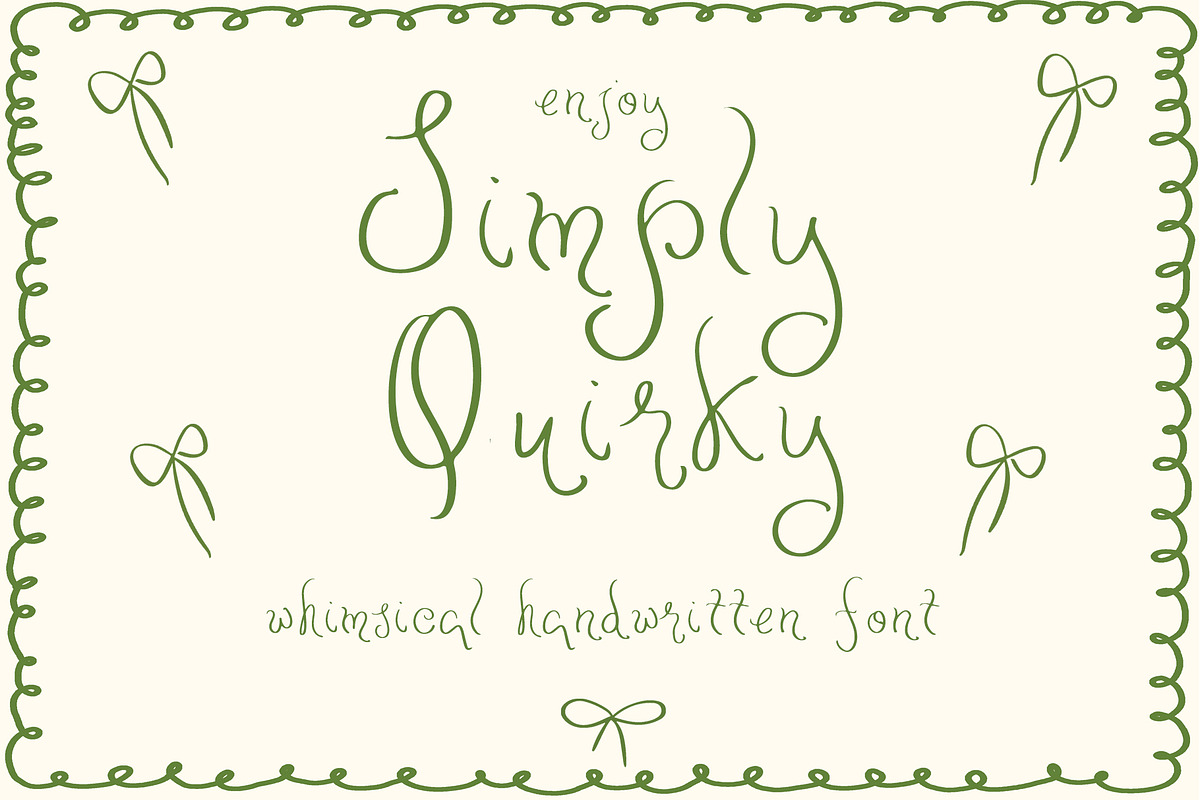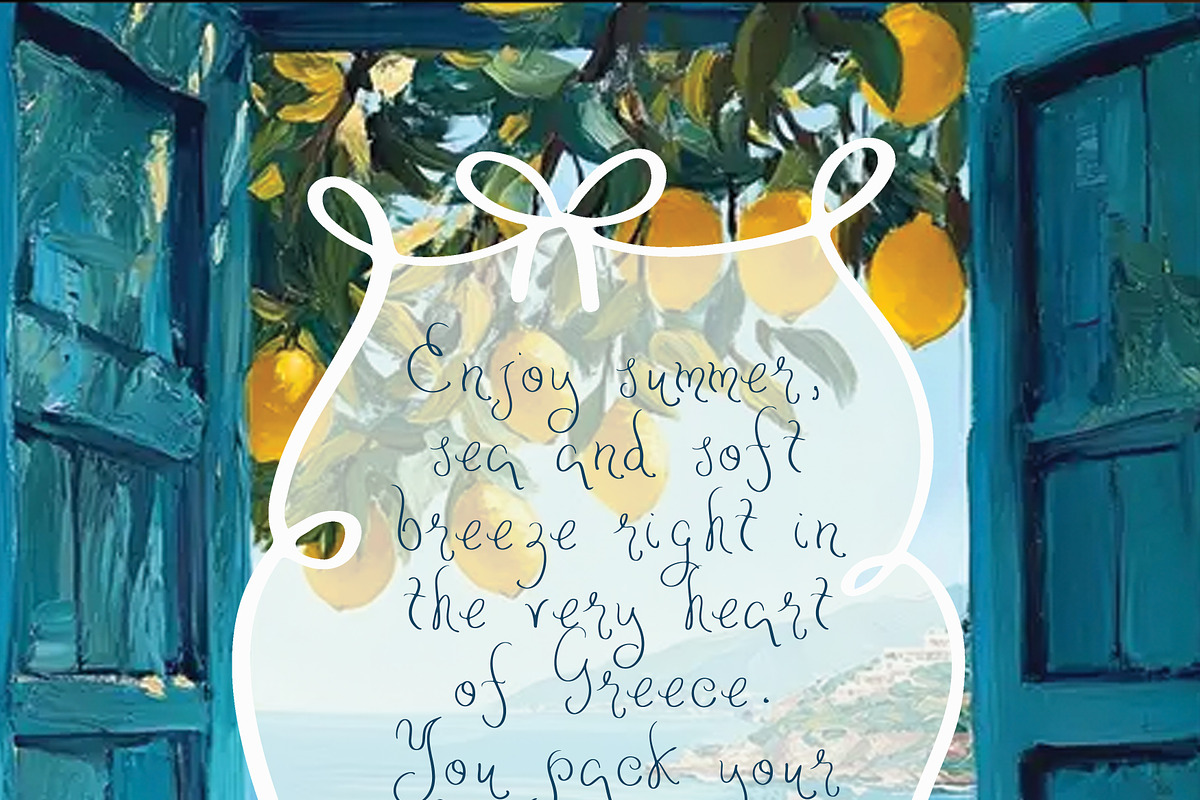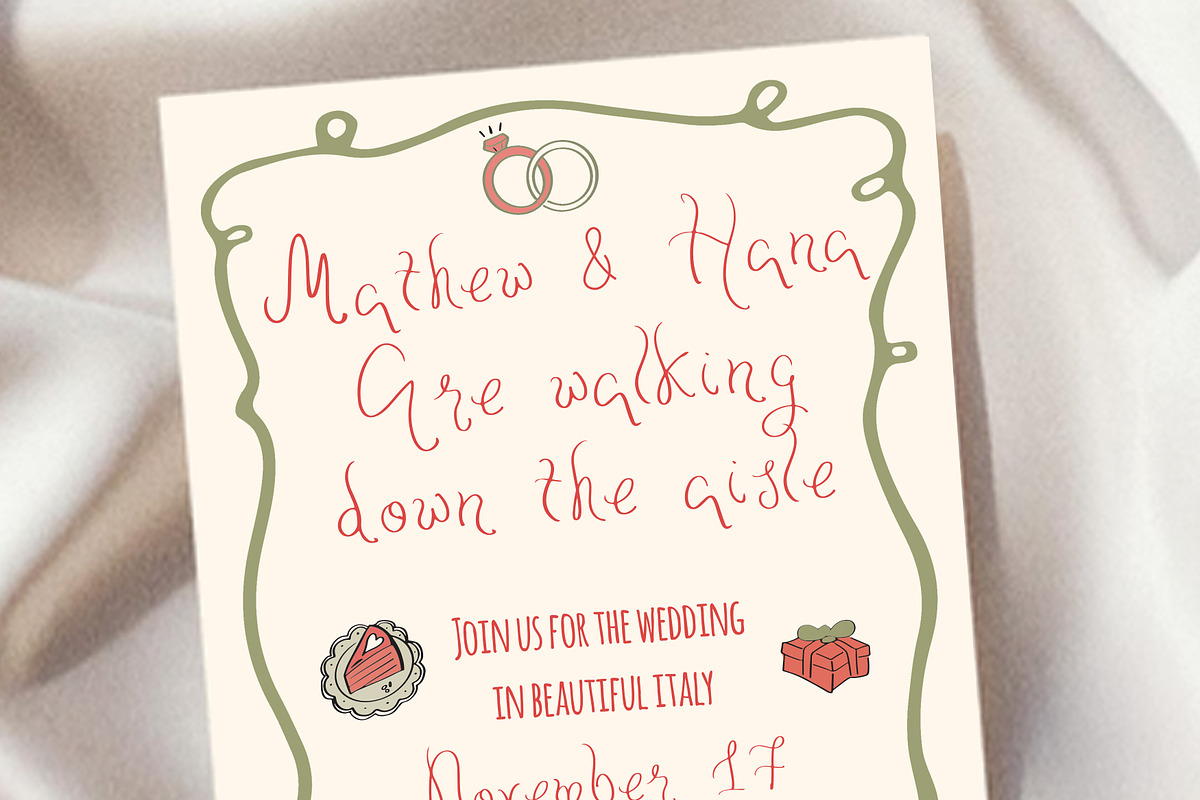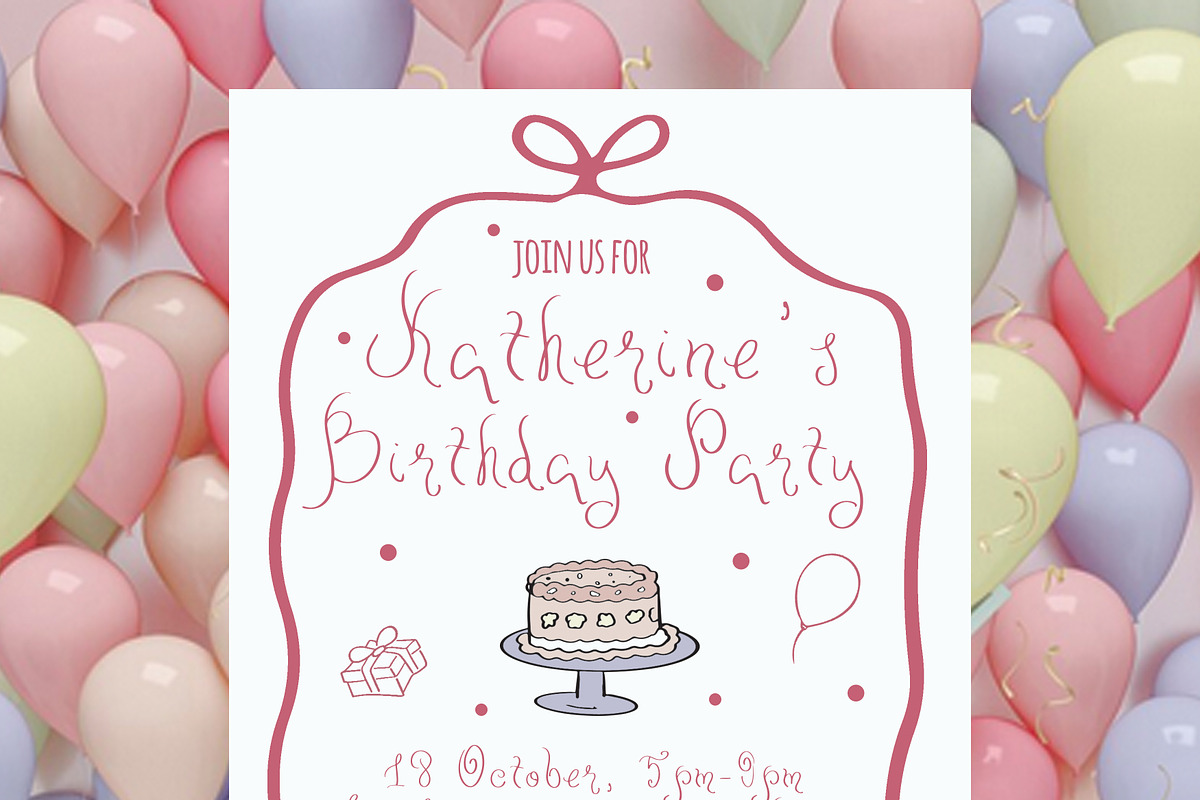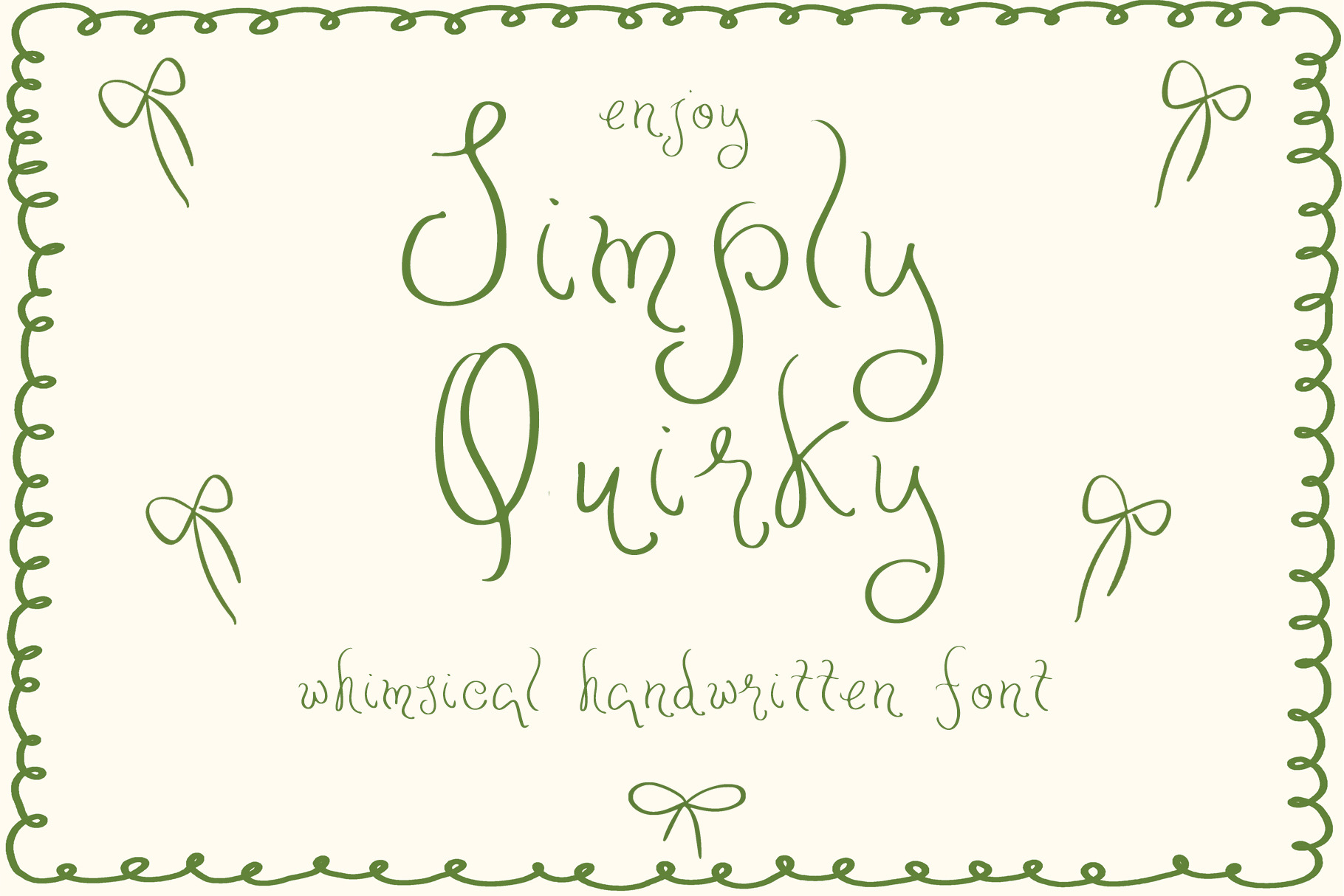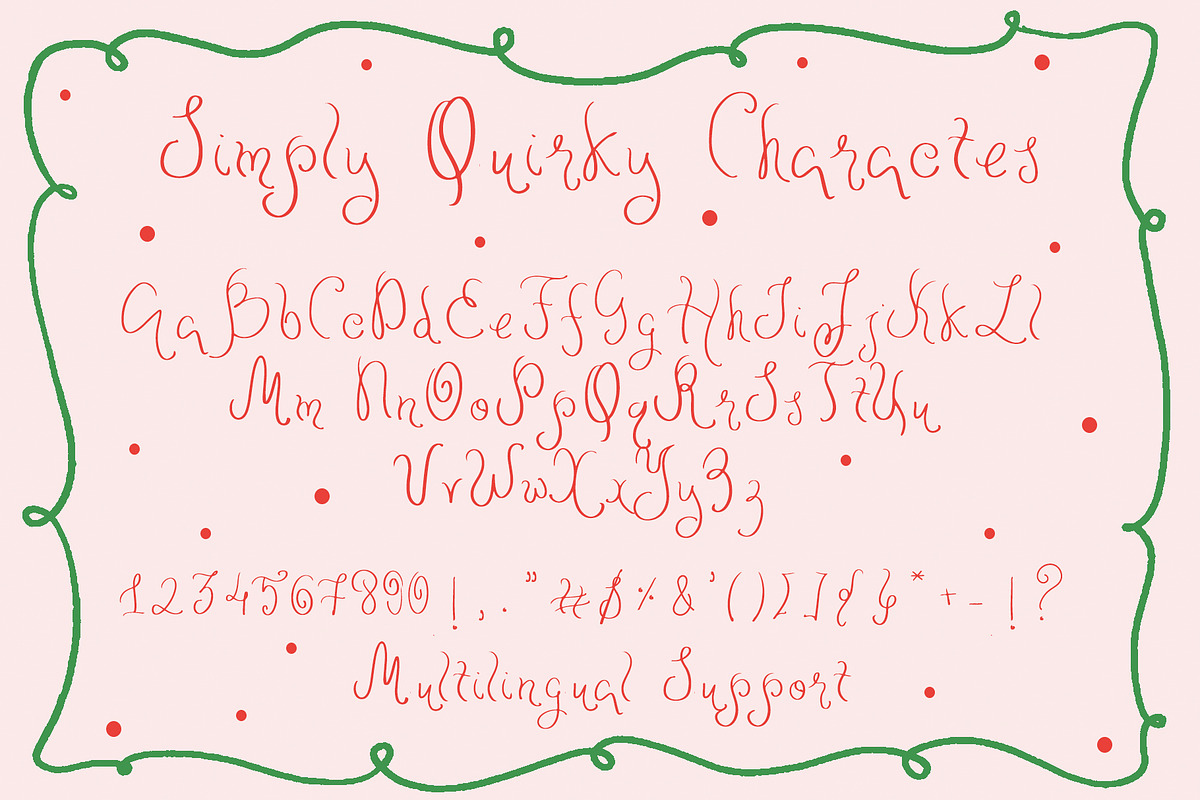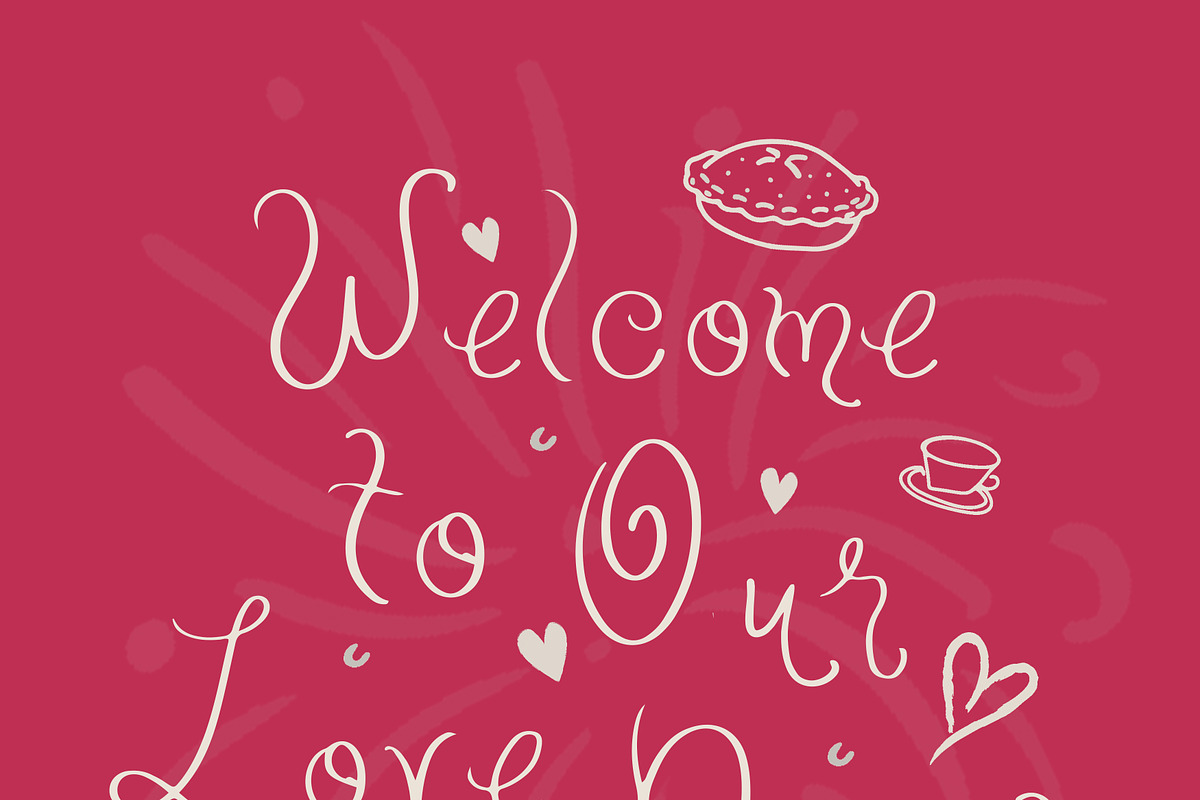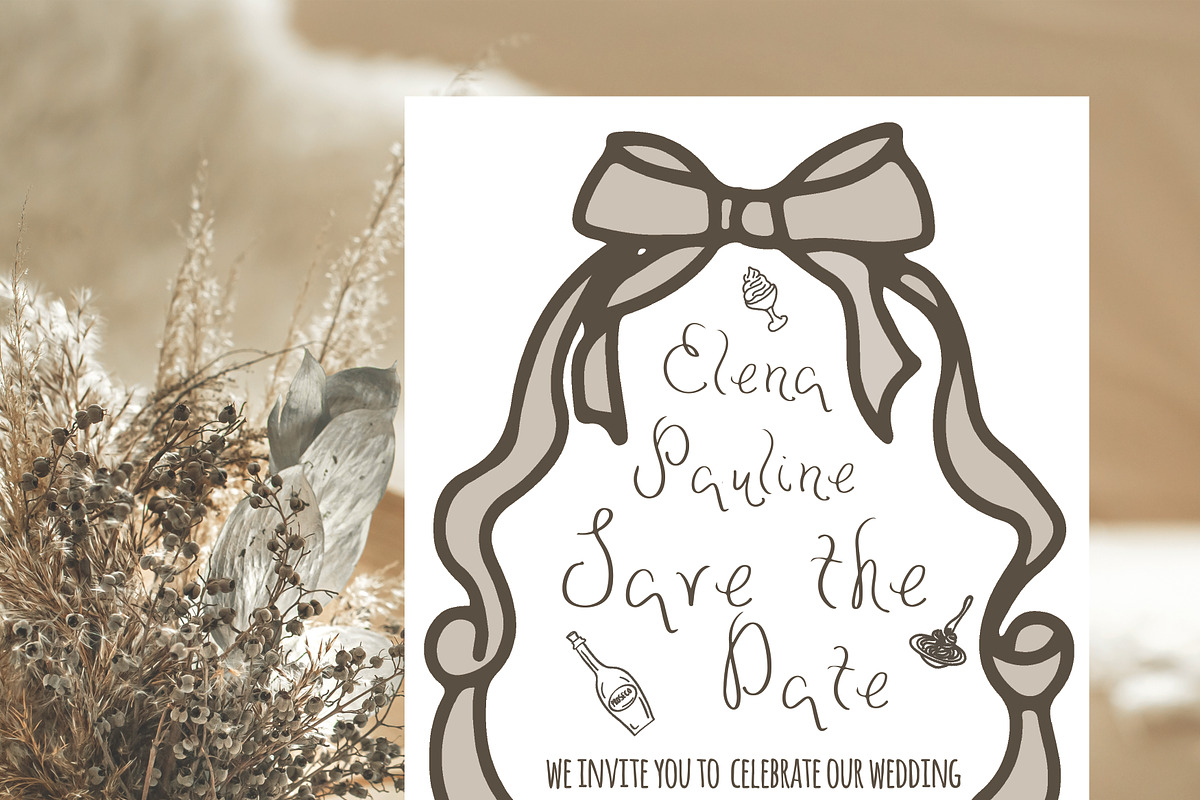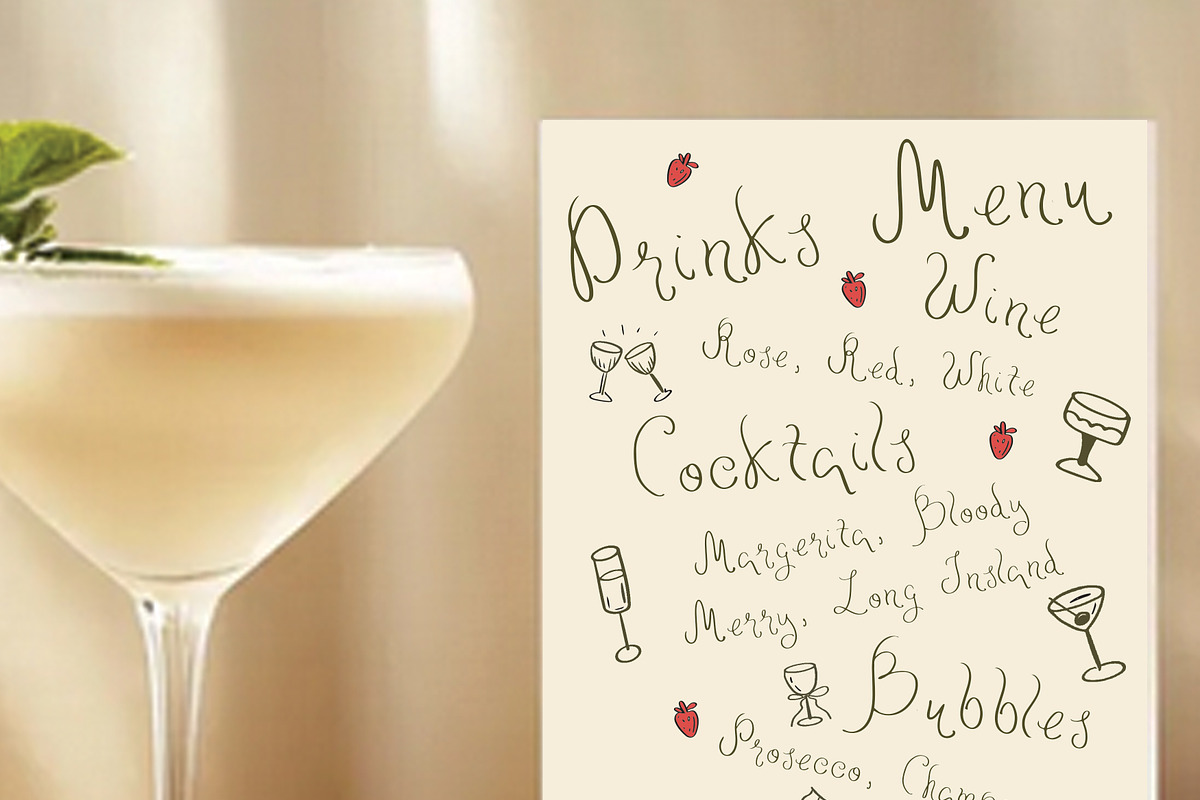
Simply Quirky Casual Handdrawn Font
Simply Quirky Handwritten Font, Whimsical Script for Wedding Menus, Quirky Invitations, Templates, Fun, Casual Script Font, Procreate & Canva Font, Playful Handwritten Typeface, Chic Handwritten Script Font
Simply Quirky is a playful script font with swirly curls and a touch of effortless quirky charm. It’s joyful and fun, jiggly and bold, perfect for wedding menus, quirky invitations, and creative branding. Playful Handwritten typeface that brings a charming and casual touch to your designs. Give your designs a twist with this Chic Handwritten Script Font.
Simply Quirky Whimsical Wedding Font includes full set of Uppercase and Lowercase Basic Characters, Numbers, Punctuation and multilingual support. PUA Encoded.